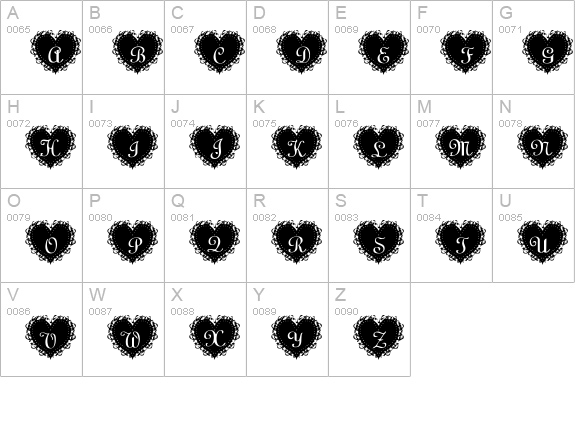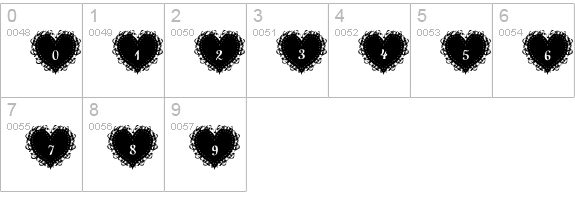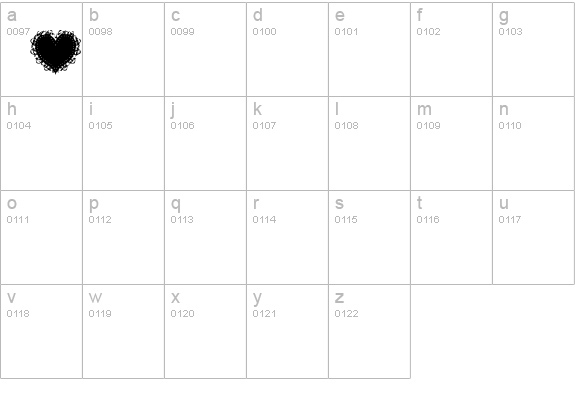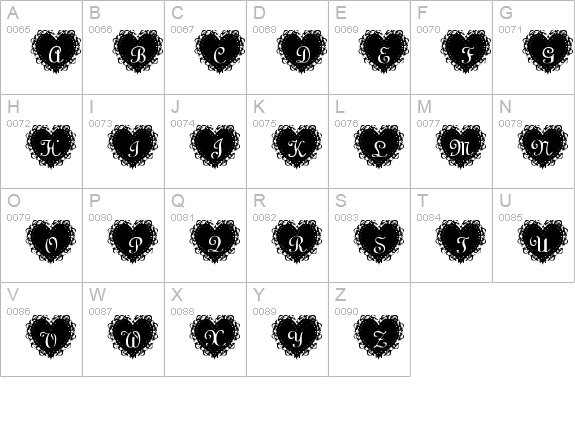
Summer's LaceHearts Font Details
Summer's LaceHearts is a beautifully designed and delicate font that exudes elegance and sophistication. Featuring intricate lace-like patterns within each letter, this font is perfect for adding a touch of romance and charm to any project. The detailed hearts intertwined with the graceful lines create a whimsical and enchanting look that is sure to captivate your audience. What makes Summer's LaceHearts even more special is that it is available for free download at FontsMarket.com. That's right, you can easily access this stunning font at no cost and start incorporating its unique style into your designs right away. Whether you're working on wedding invitations, greeting cards, or any other creative project, Summer's LaceHearts is the perfect choice to bring a touch of beauty and sophistication to your work. Download it today and let your creativity shine with this lovely and captivating font.